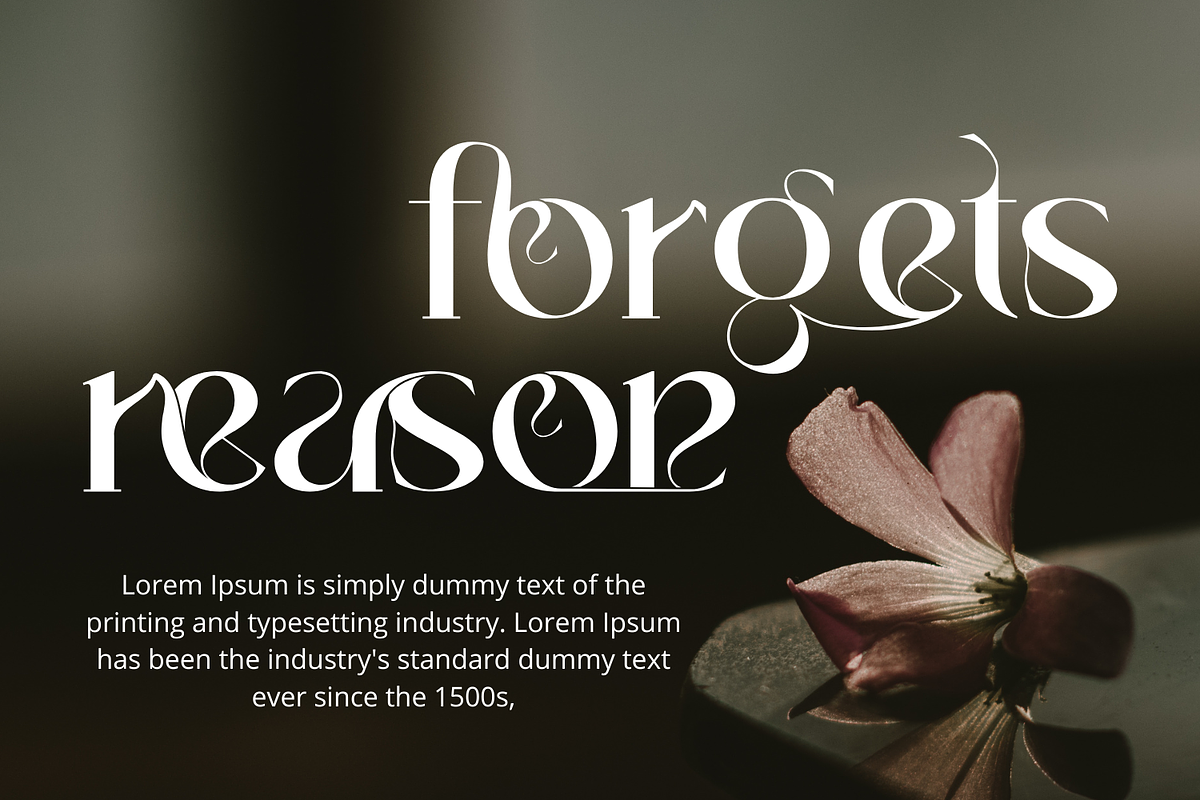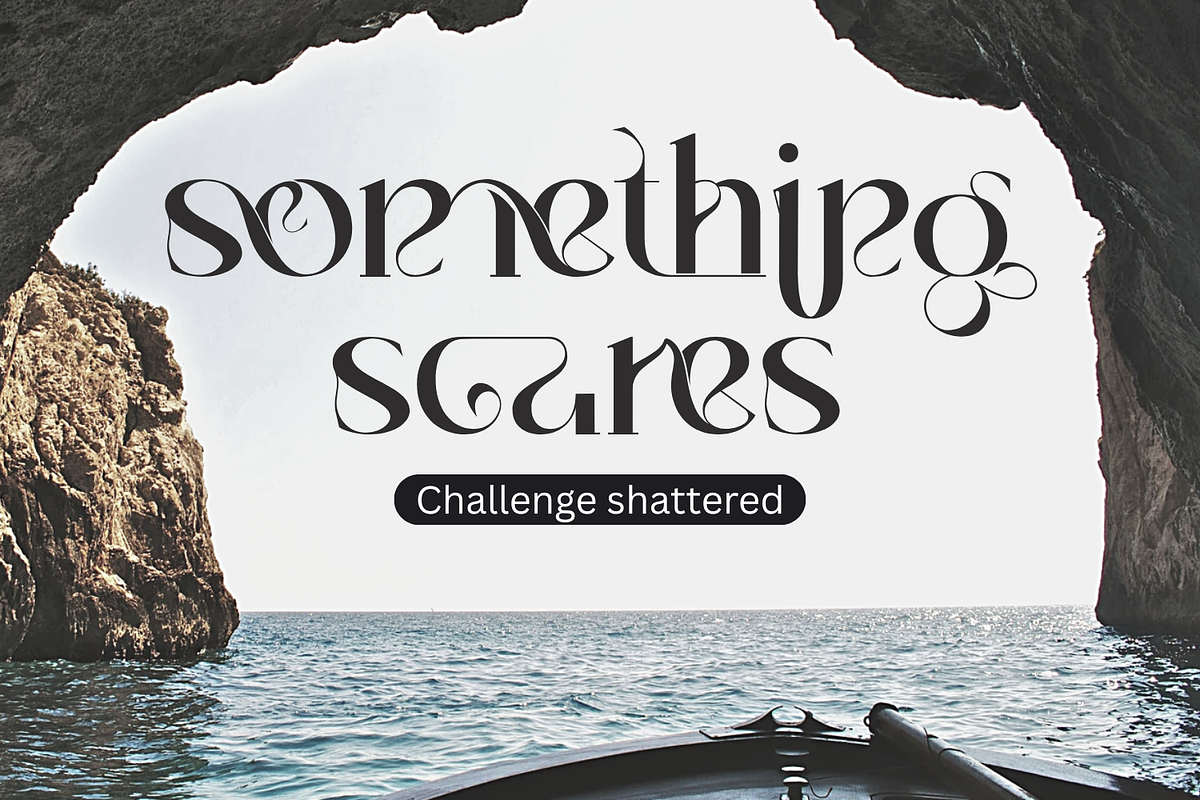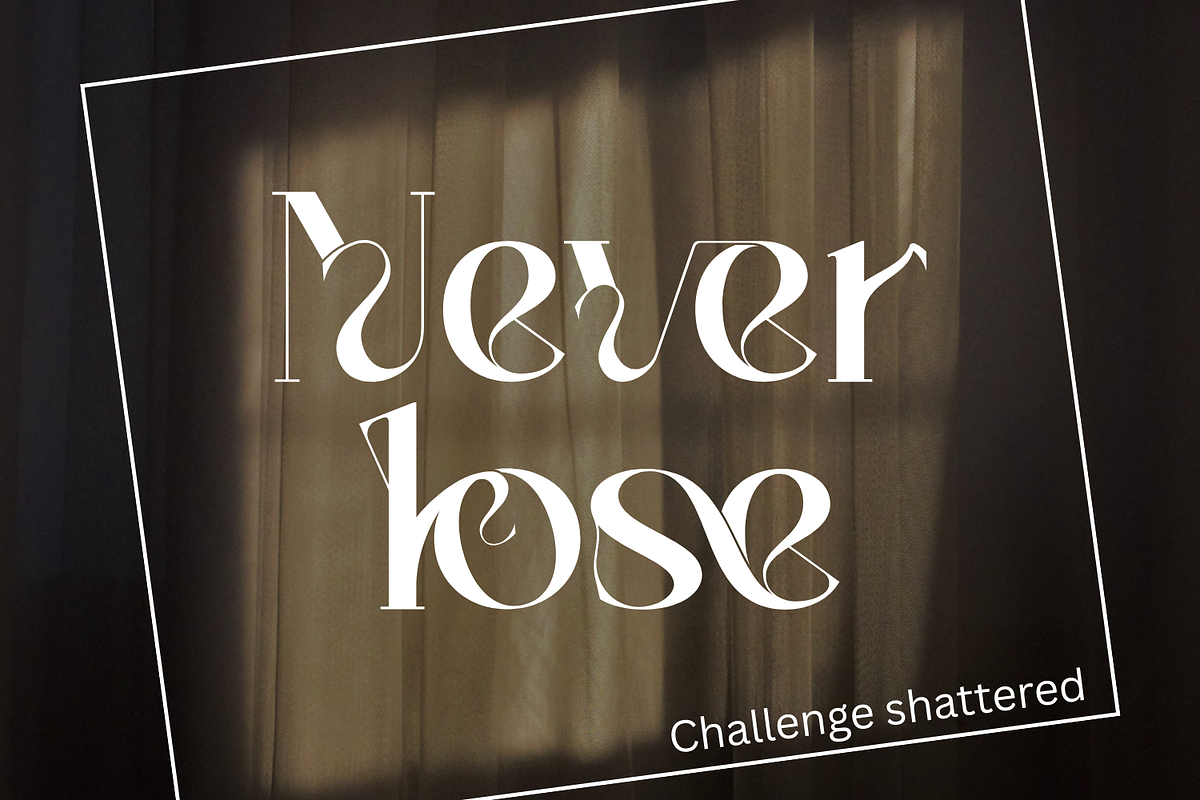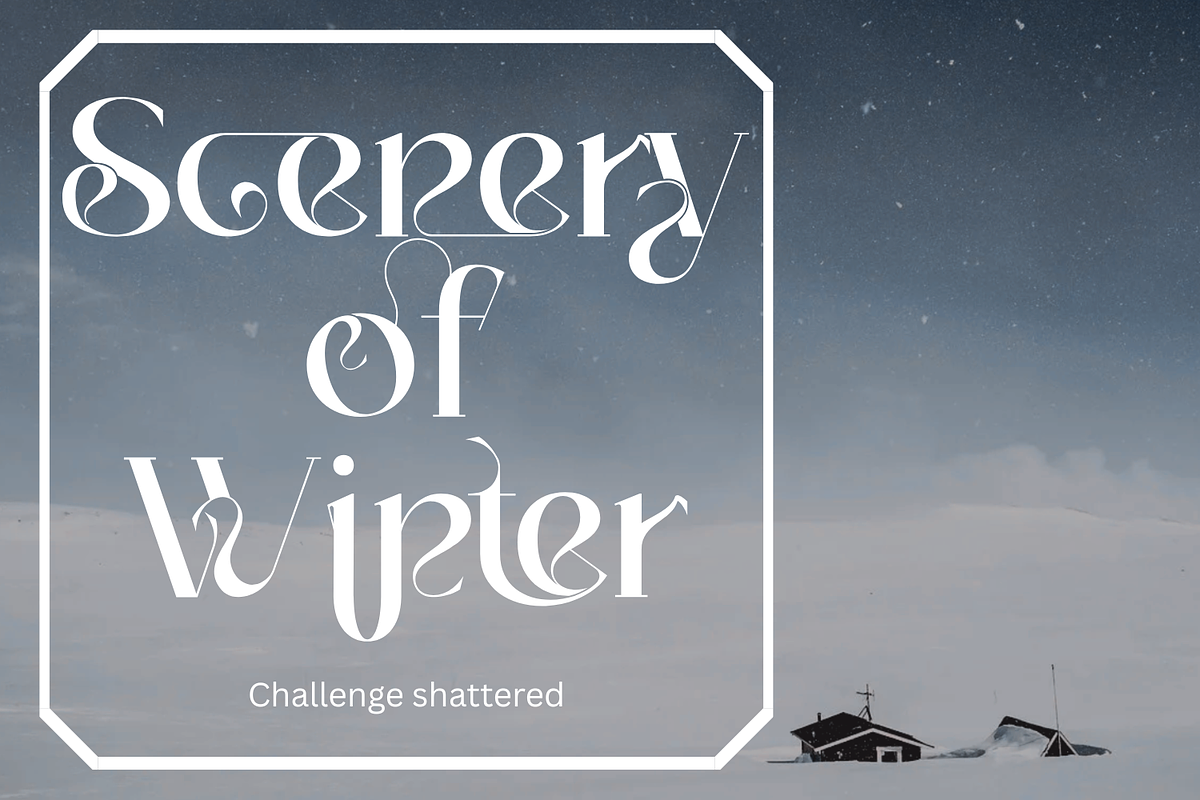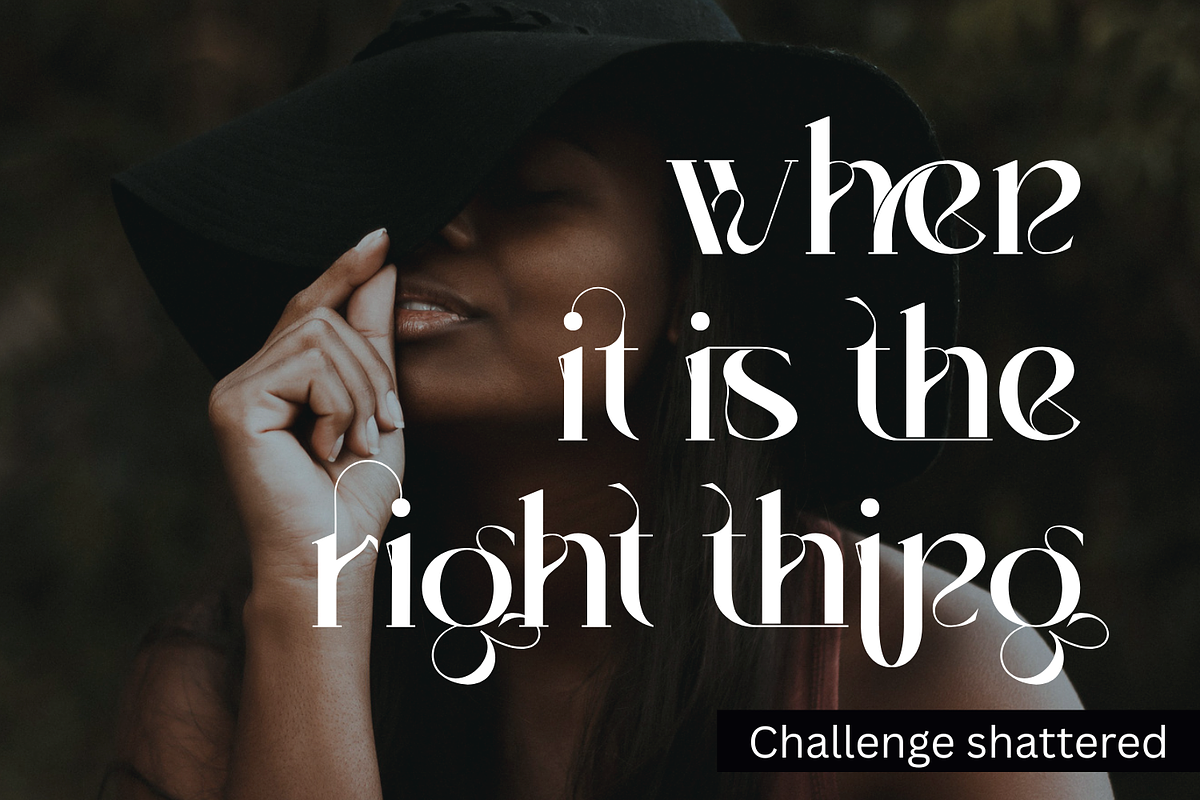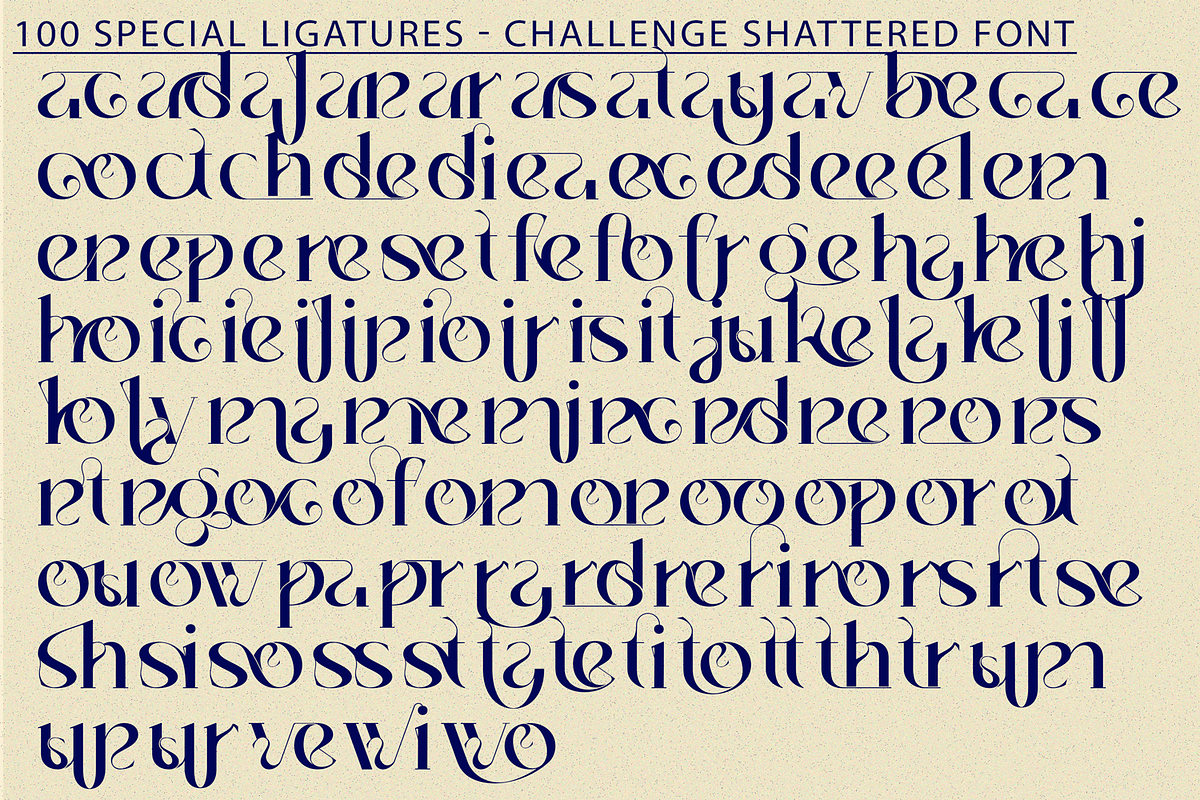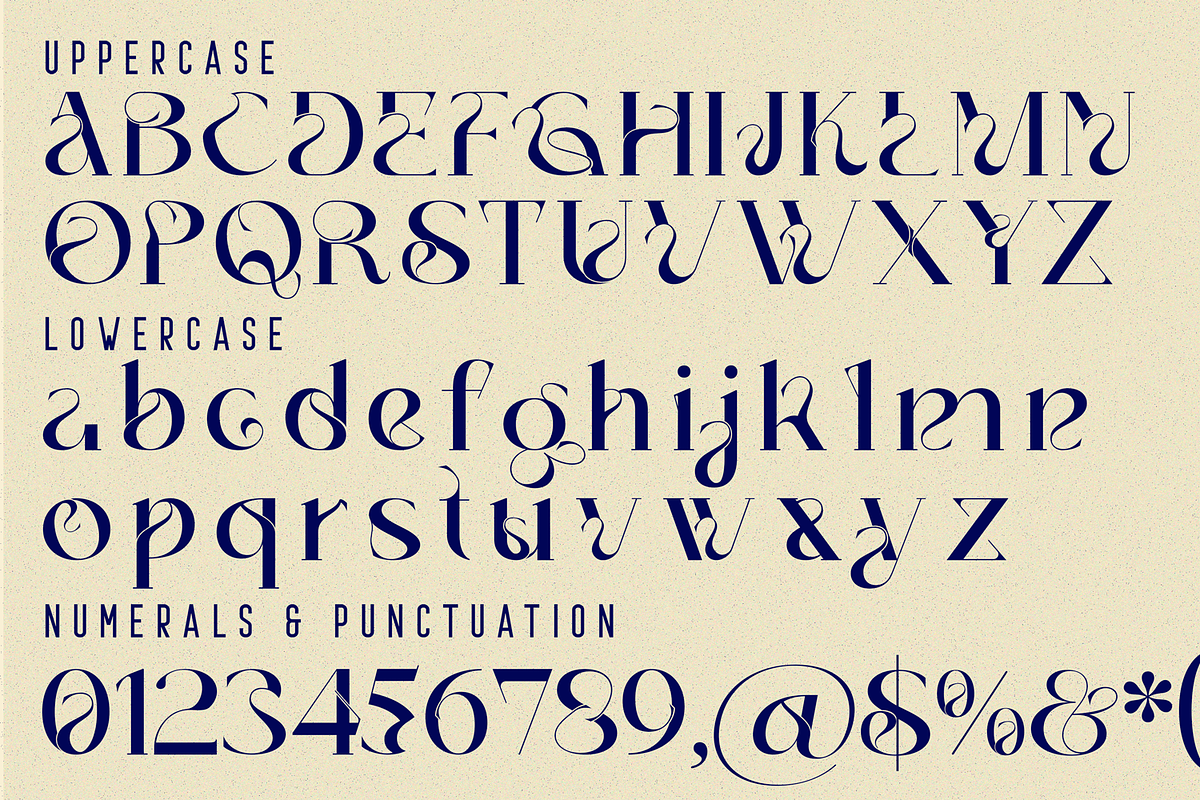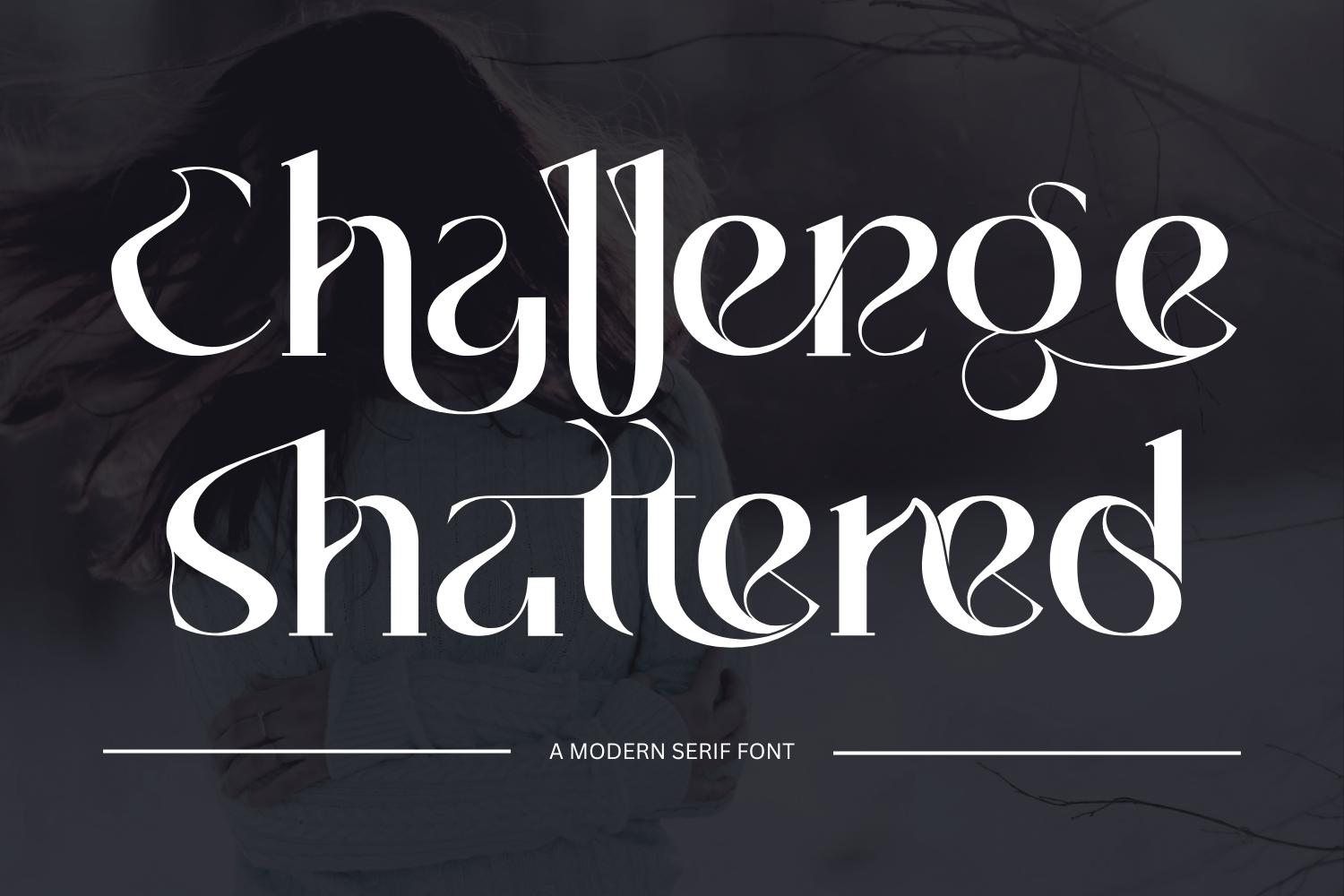
Challenge shattered - Modern Font
Challenge shattered - Modern Serif Font – A Dramatic & Ornamental Display Serif, a refined and expressive display serif font designed to captivate. With its high-contrast strokes, intricate curves, and ornate ligatures, this typeface brings elegance and personality to every word it forms. Inspired by classical calligraphy and infused with a modern Art Nouveau spirit, each character dances with flourish and finesse.
This font is perfect for branding, editorial design, posters, book covers, fashion lookbooks, or anything that demands visual sophistication and flair.
- Uppercase & Lowercase Letters
- Around 100 Special Ligatures
- Multilingual Support with Accented Characters
About 100 ligatures combined with Stylistic Alternates Font:
ac ad al an ar as at au av be ca ce ch co ct de di ea ec ed ee el em en ep er es et fe fo fr ge ha he hi ho ie ic il in io ir is it ju ke la le li ll lo ly ma me mi nc nd ne ng no nt ns oc of om on oo op or ot ou ow pa pr ra rd re ri ro rs rt se sh si so ss st ta te th ti to tr tt um un ur ve wi wo